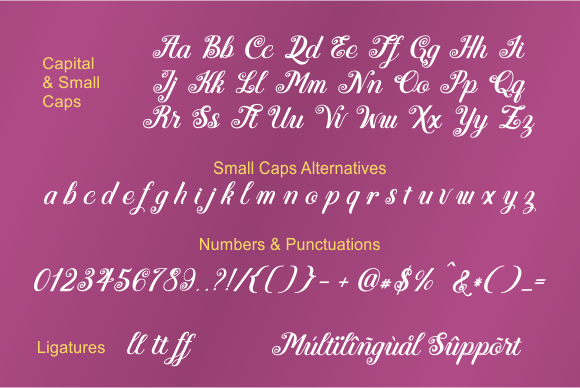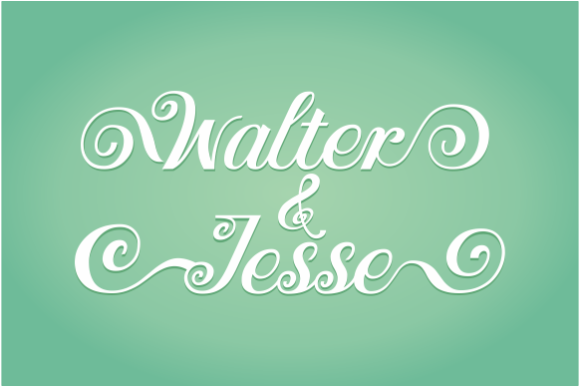
About Clement Times Font
Clement Times is a refined and exquisitely crafted script font that effortlessly exudes a sense of elegance and sophistication. With its delicate strokes and meticulously balanced characters, this font is the perfect choice for adding a touch of luxury and refinement to your design projects.
The timeless and well-balanced nature of Clement Times makes it a versatile font that can enhance a wide range of design applications. From wedding invitations and high-end branding materials to product packaging and editorial layouts, this font elevates the overall aesthetic with its graceful and harmonious appearance.
The luxurious spark that Clement Times brings to your designs is further enriched by its extensive set of glyphs and ligatures, made easily accessible through its PUA encoding. This feature allows you to seamlessly access and incorporate a variety of decorative elements, alternate characters, and ligatures, enabling you to create truly unique and captivating typographic compositions.
Whether you’re crafting elegant logos, designing bespoke stationery, or curating visually stunning social media posts, Clement Times empowers you to infuse a sense of opulence and refinement into every aspect of your work. Its ability to effortlessly merge beauty and functionality makes it an invaluable asset for designers seeking to create exceptional and memorable design experiences.
Embrace the luxury and charm that Clement Times brings to your creative endeavors, and watch as it transforms your projects into captivating works of art that captivate and inspire. With its delicate yet impactful presence, this font is destined to leave an indelible mark on your design journey.